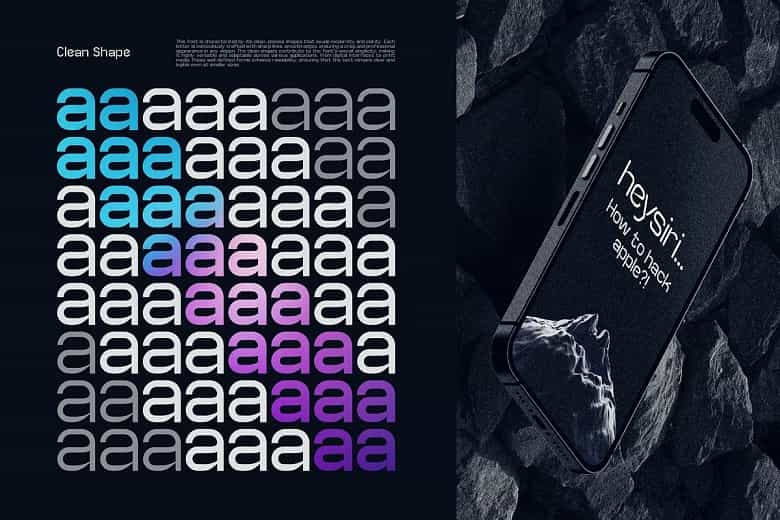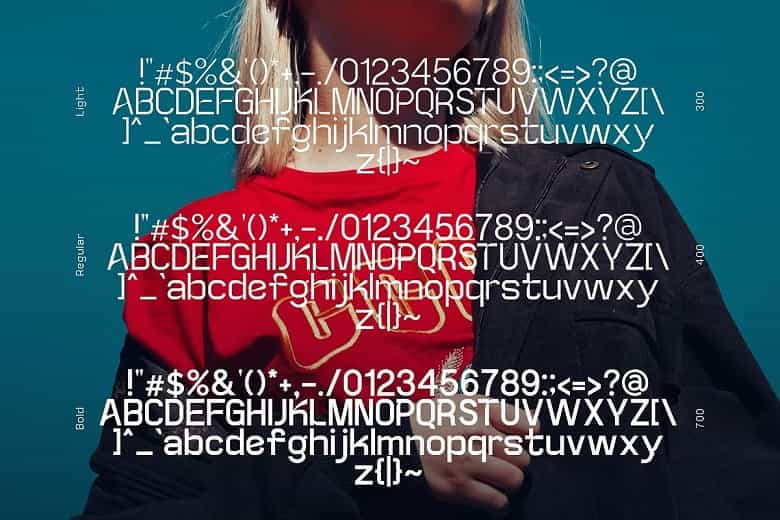
Teknaf is a clean and sophisticated sans serif font which is at the same time very much in tune with today’s design trends. This is a font that has been created to grab the eye and make an impact in any given design work.